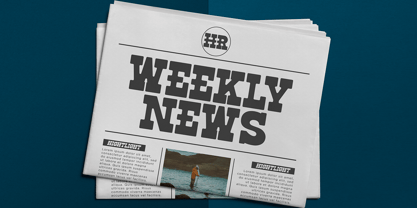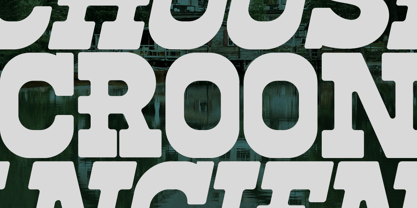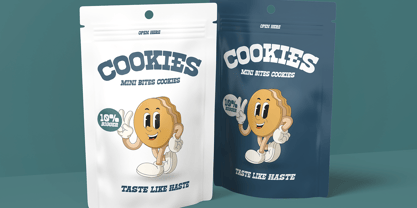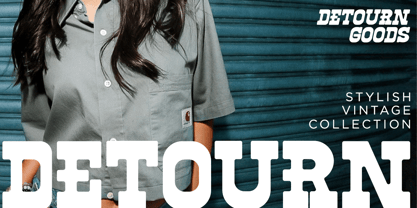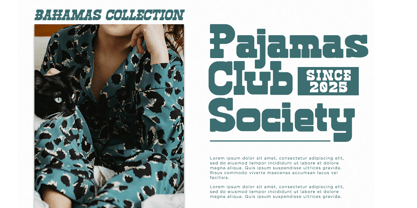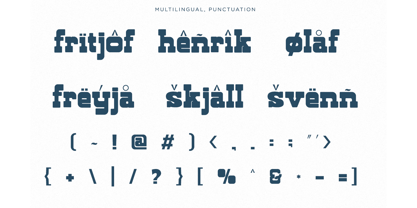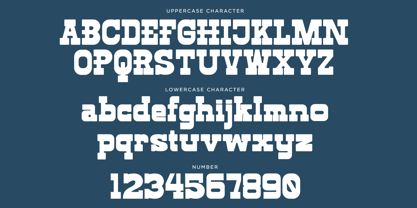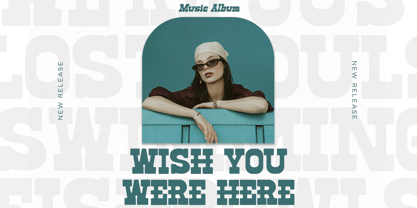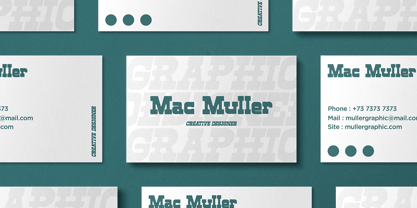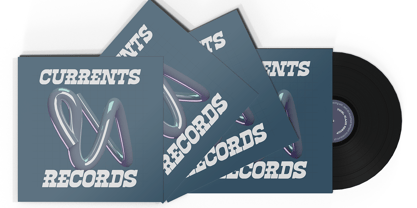
Anymore
Anymore is a bold vintage slab serif font crafted to bring timeless character and confident style to every design. Inspired by classic western typography and retro editorial aesthetics, this font combines strong geometric slab serifs with clean, balanced proportions, making it perfect for both nostalgic and modern branding projects.
Whether you're designing logos, packaging, posters, apparel, whiskey labels, café branding, book covers, magazine headlines, or social media graphics, Anymore delivers a distinctive vintage personality with excellent readability. Its bold presence makes every headline stand out while maintaining an authentic handcrafted feel that works across print and digital media.
Perfect for creative professionals looking to add classic charm and premium quality, Anymore is an excellent choice for branding, retro-inspired projects, merchandise, advertising, signage, and editorial layouts. Elevate your typography with a slab serif font that captures the spirit of heritage craftsmanship and contemporary design.
• Regular and Italic Style
• Uppercase and Lowercase
• Number, Symbol, and Punctuation
• Multi Language Support